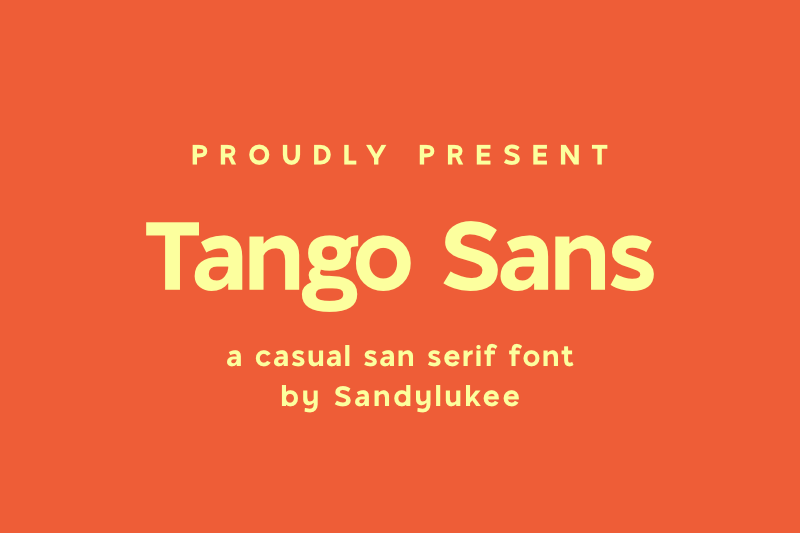
Introducing Tango Sans, a casual san serif font that fit with any of your project. It is great for title, text, logo, posters, banner etc. This font is FREE, you can use it freely for personal or commercial use. But please don't use it for erotic/pornography, racist, hate, crime, fraud, hoax or any bad purpose. And please don't sell the font itself. For more information about the license of this font, please email me at sandylukee@gmail.com If you feel happy and helped, you can also donate me via my paypal account : sandylukee@gmail.com Your donation is always appreciated :) Thank you, and have a nice day! |